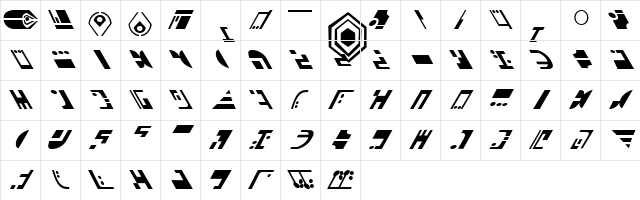
Complete StarTrek ferengi L engi 1L glyph index. Displaying only characters natively supported by StarTrek ferengi L engi 1L font.
StarTrek ferengi L is a composed and adaptable typeface that performs quietly and consistently across a wide range of design contexts.